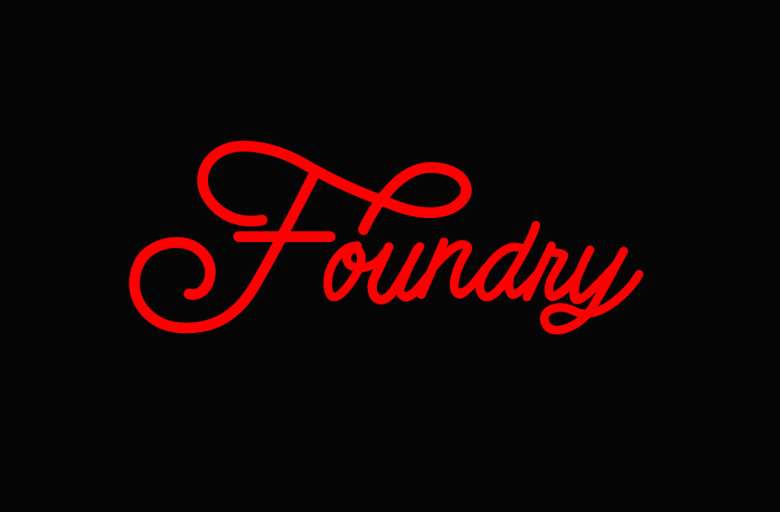
Foundry Font Kit
Foundry Font
Have fun introducing you to a new premium font kit. It will be a great typography for your new project. lntroducing Foundry Font Kit! Foundry designed and shared by Micromove. Foundry is one of the best Stylish Hand Written Script. Best match for logos, header, Titles, Prints & other Creative process possibilities. Create a Extraordinary Typography / lettering results by using Foundry Font Pack
Foundry Calligraphy Font Kit